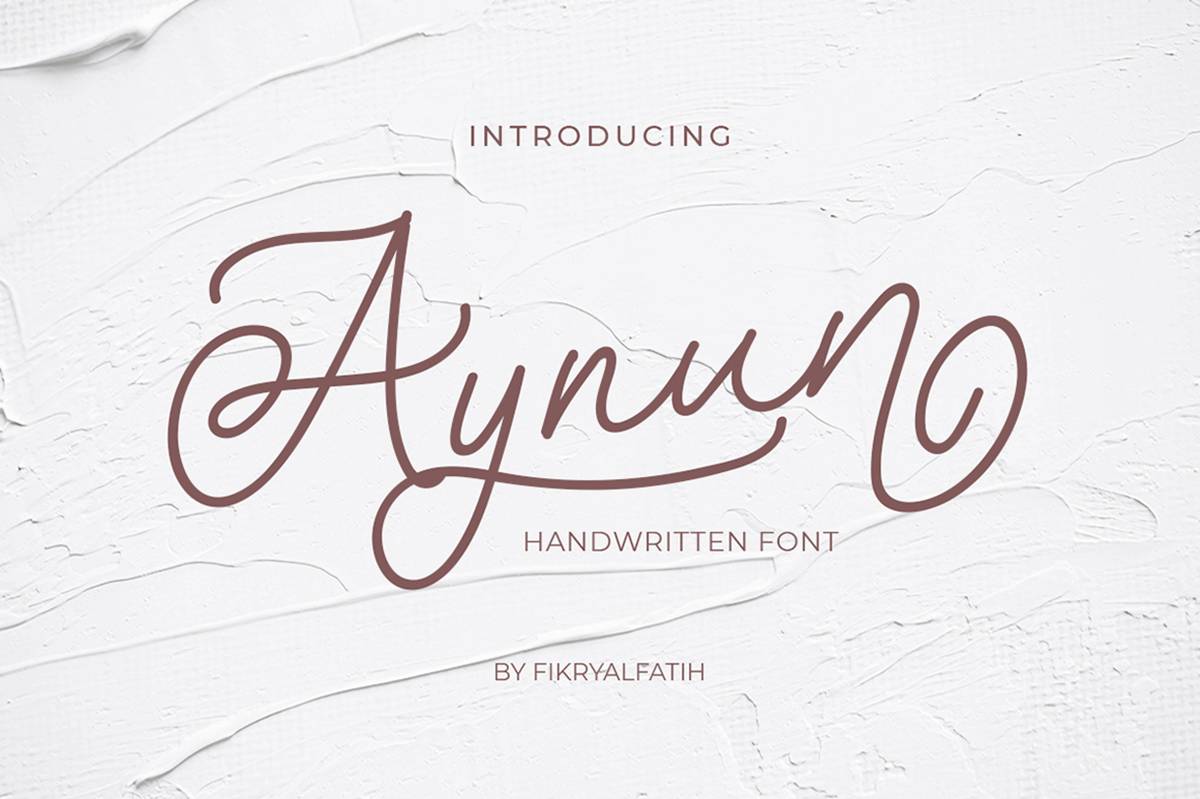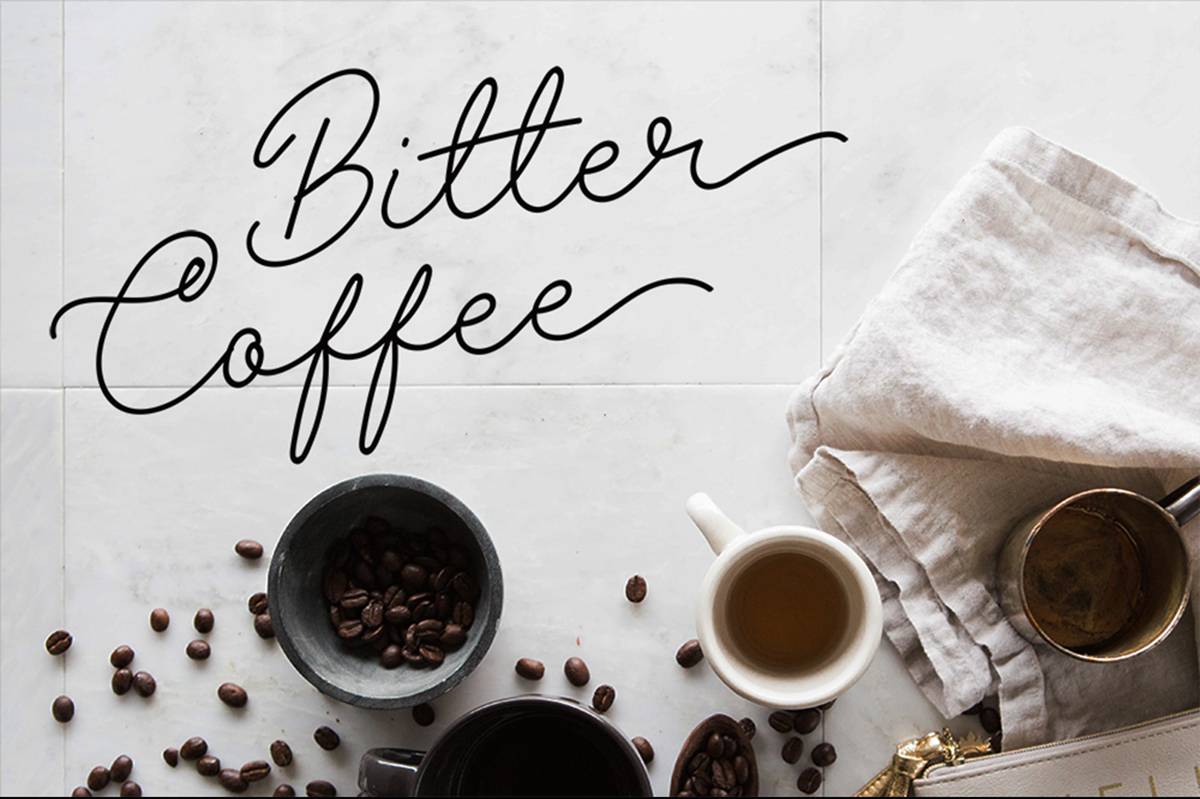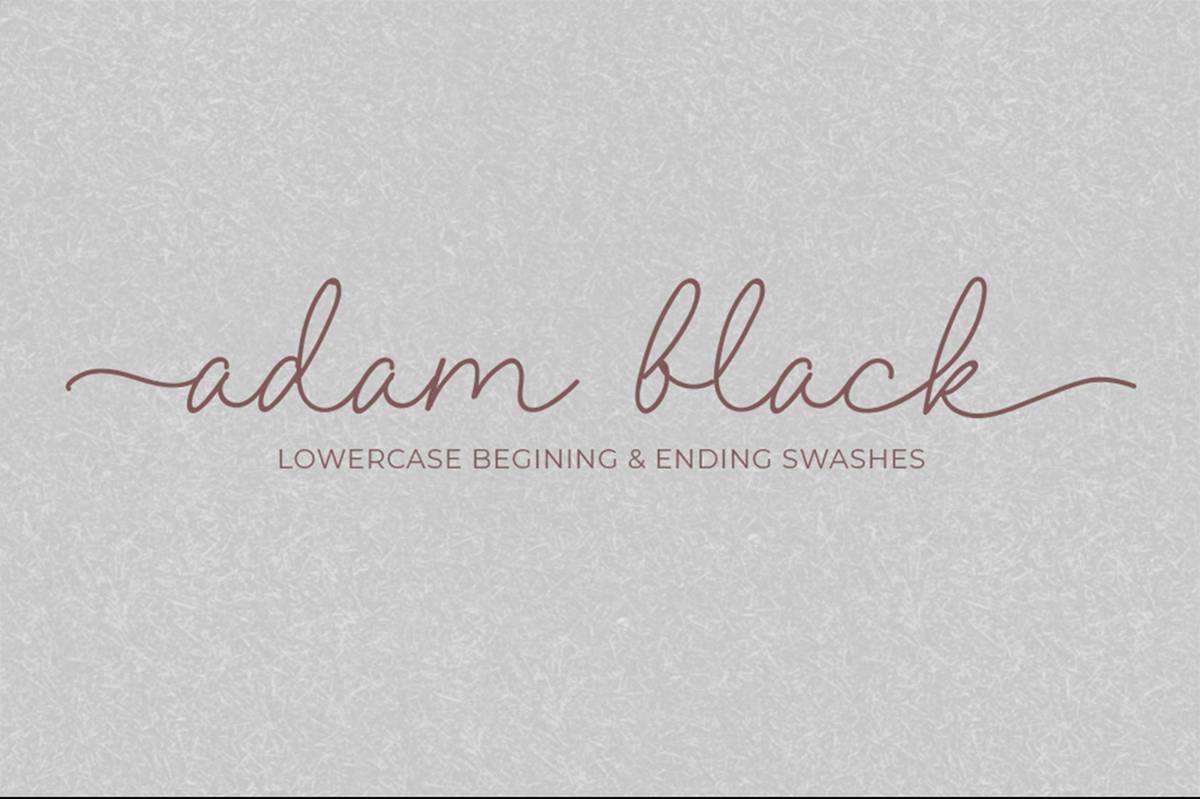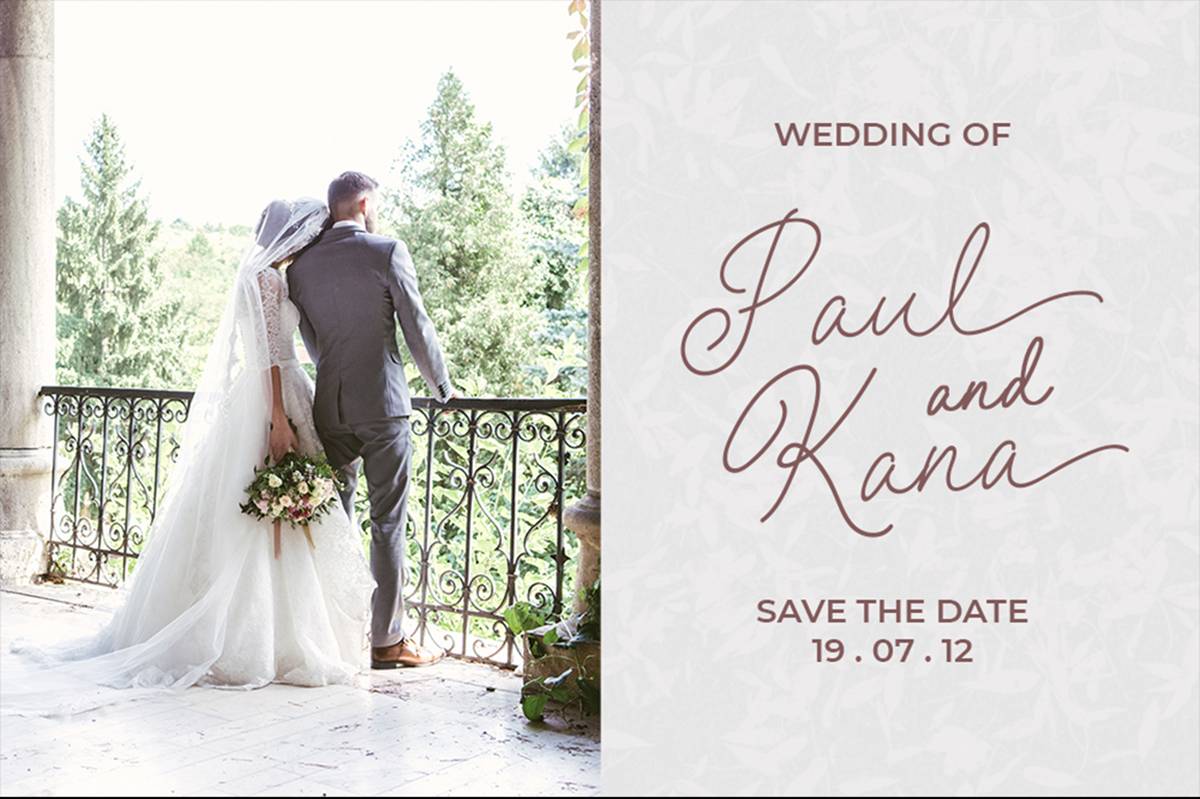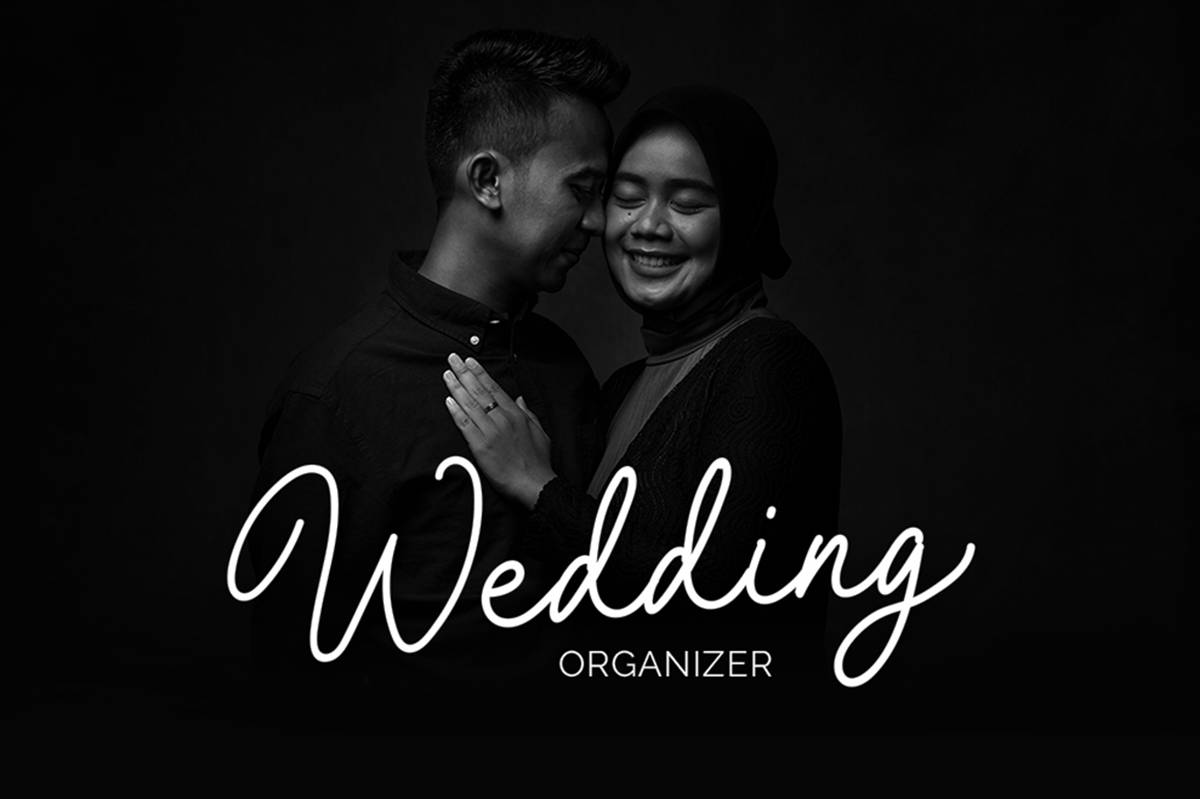
Aynun is an elegant, delicate script font featuring fine, flowing strokes that create a graceful and sophisticated look. Its tall, airy letterforms with subtle curves convey a refined, vintage charm ideal for invitations, branding, and editorial projects that seek a personal, stylish touch. This font shines in designs that call for a light, handwritten feel with a classic, romantic personality.
Aynun Font